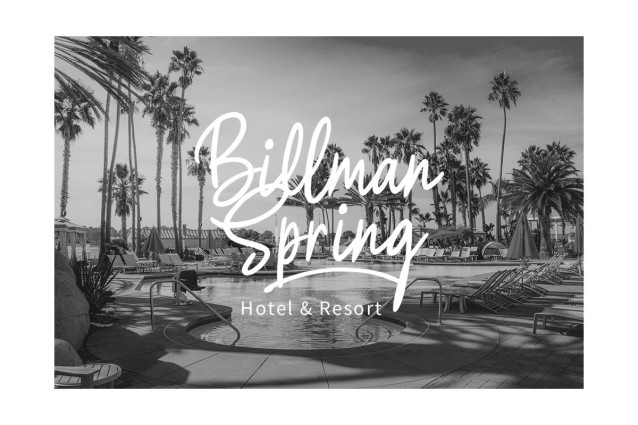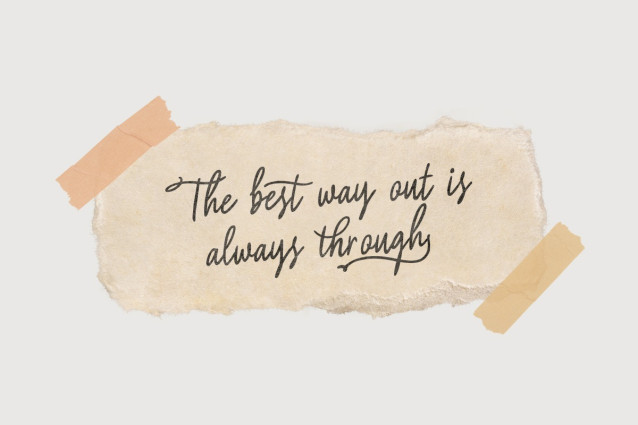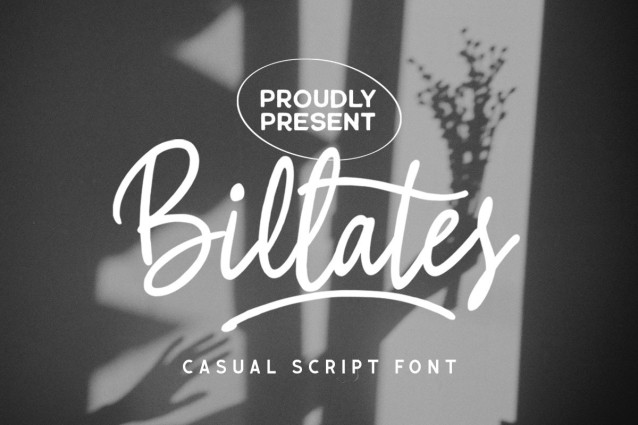
The Billates Font
The Billates Font – With its natural and free-flowing style, this font exudes a relaxed and informal look that is perfect for capturing a laid-back atmosphere. From handwritten notes to product packaging, Billates brings a touch of casual elegance to your design projects.